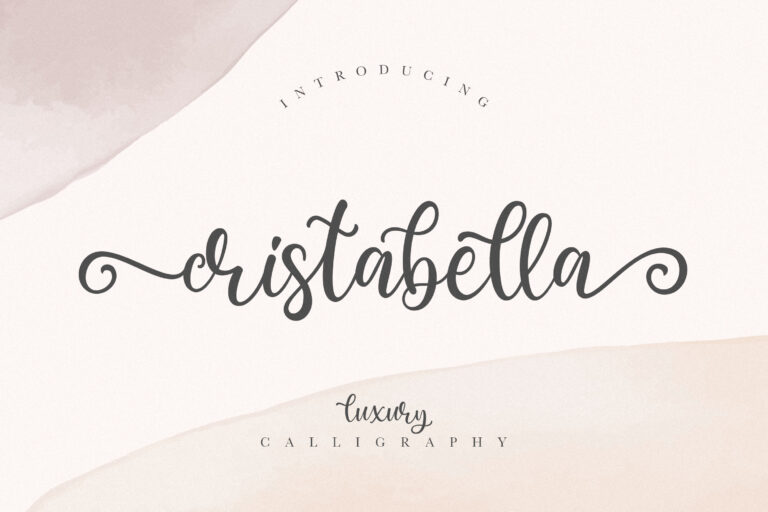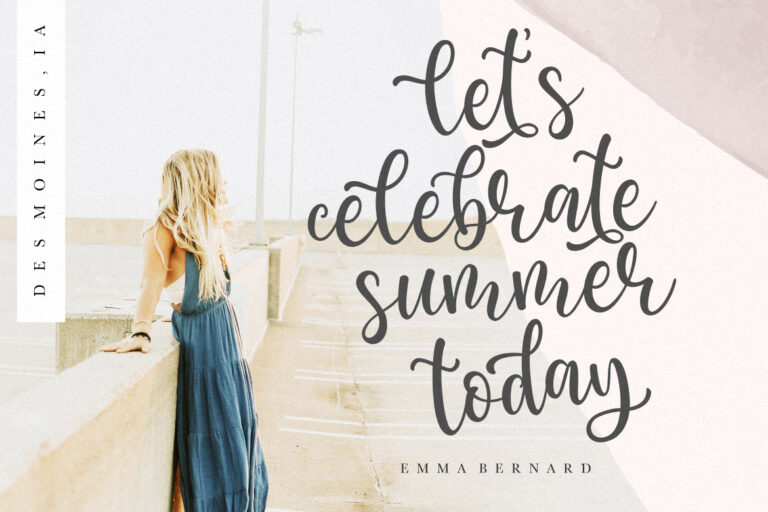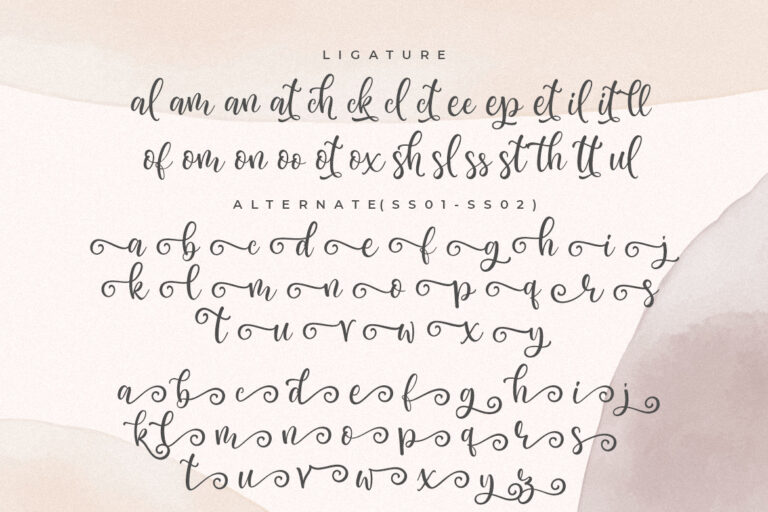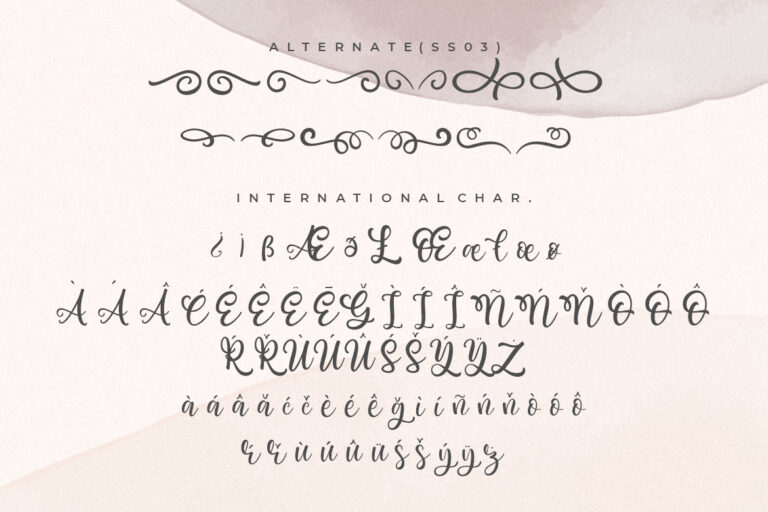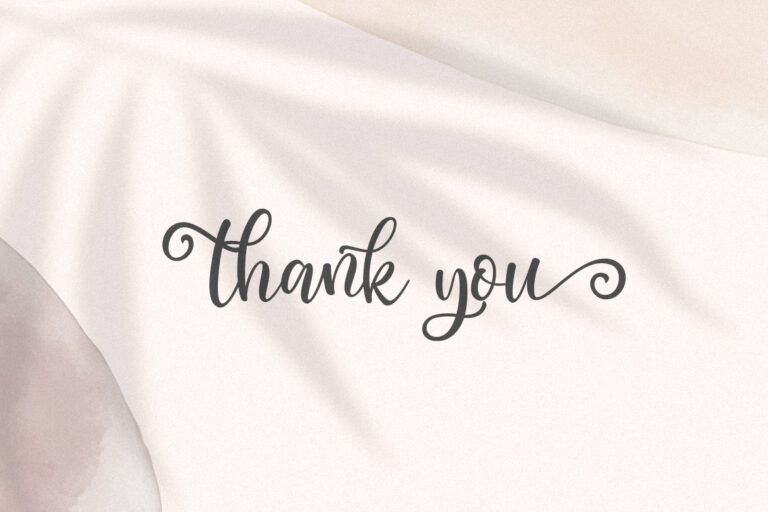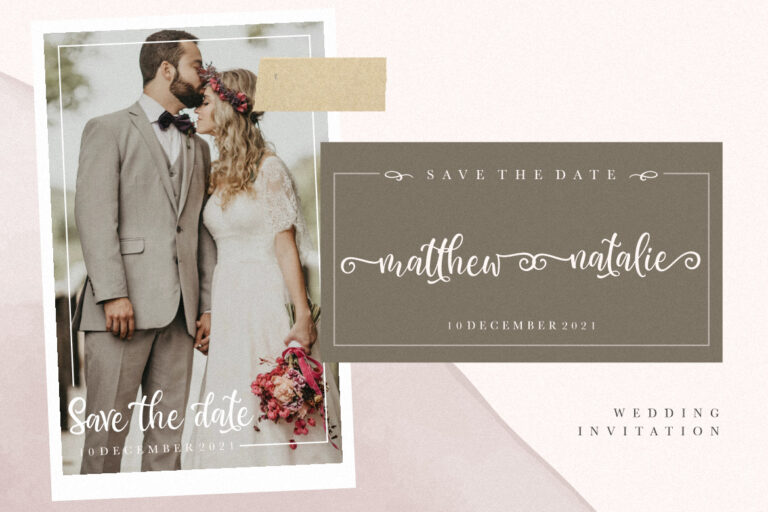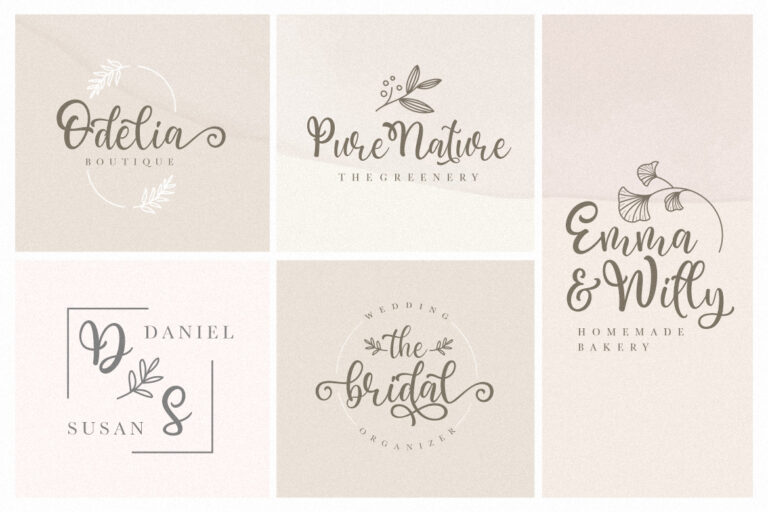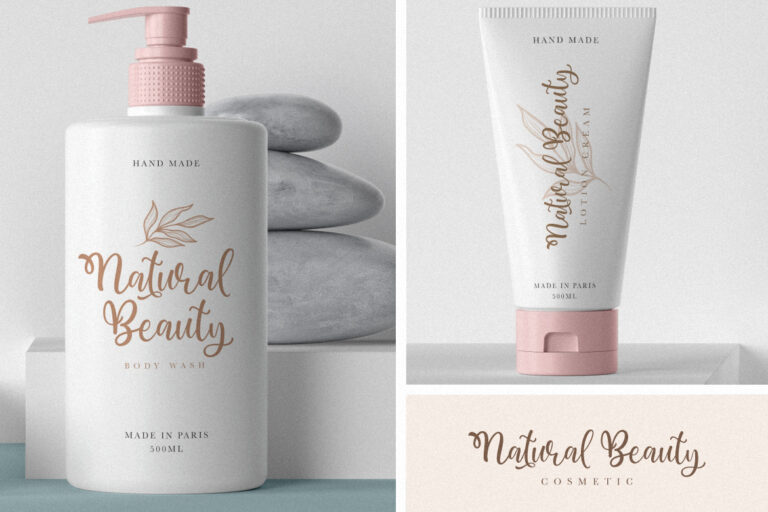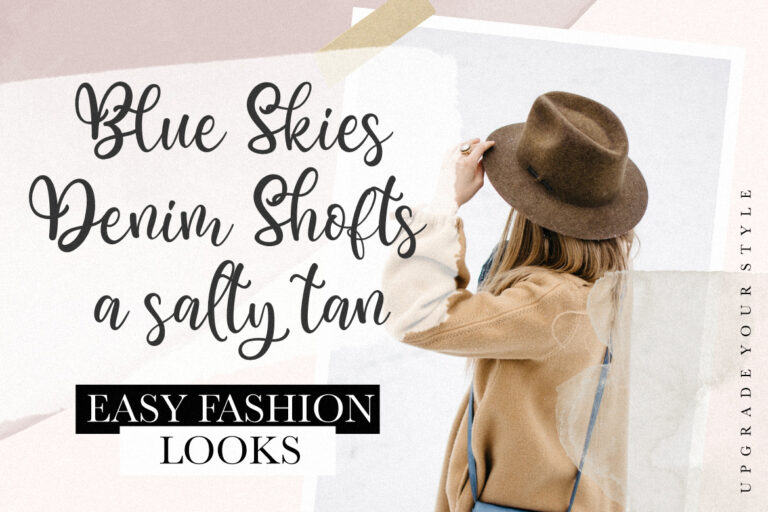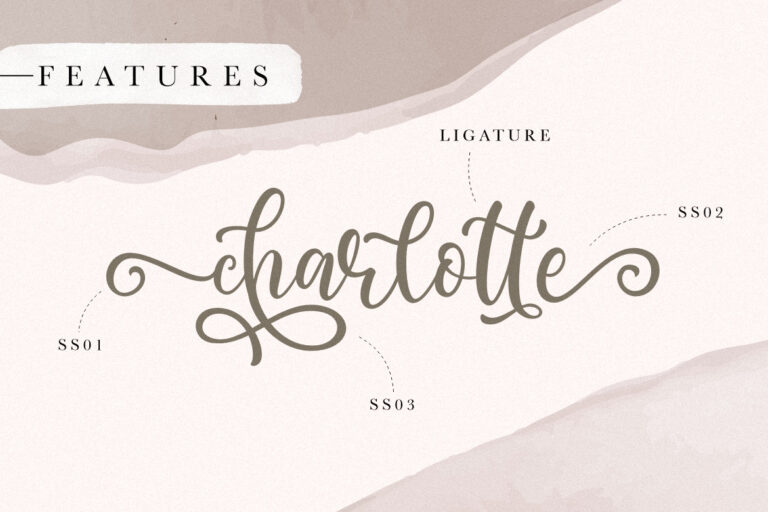
Cristabella Luxury Calligraphy
Cristabella a luxury calligraphy font looks elegant, classy and curly.
Cristabella is perfect for branding projects, logo, wedding designs, social media posts, advertisements, product packaging, product designs, label, photography, watermark, invitation, stationery and any projects that need handwriting taste.
• Ton of glyphs
• Ligature, Alternate & Swashes
• Fonts include multilingual support for; Afrikaans, Albanian, Czech, Danish, Dutch, English, Estonian, Finnish, French, German, Hungarian, Italian, Latvian, Lithuanian, Norwegian, Polish, Portugese, Slovak, Slovenian, Spanisch, Swedish.